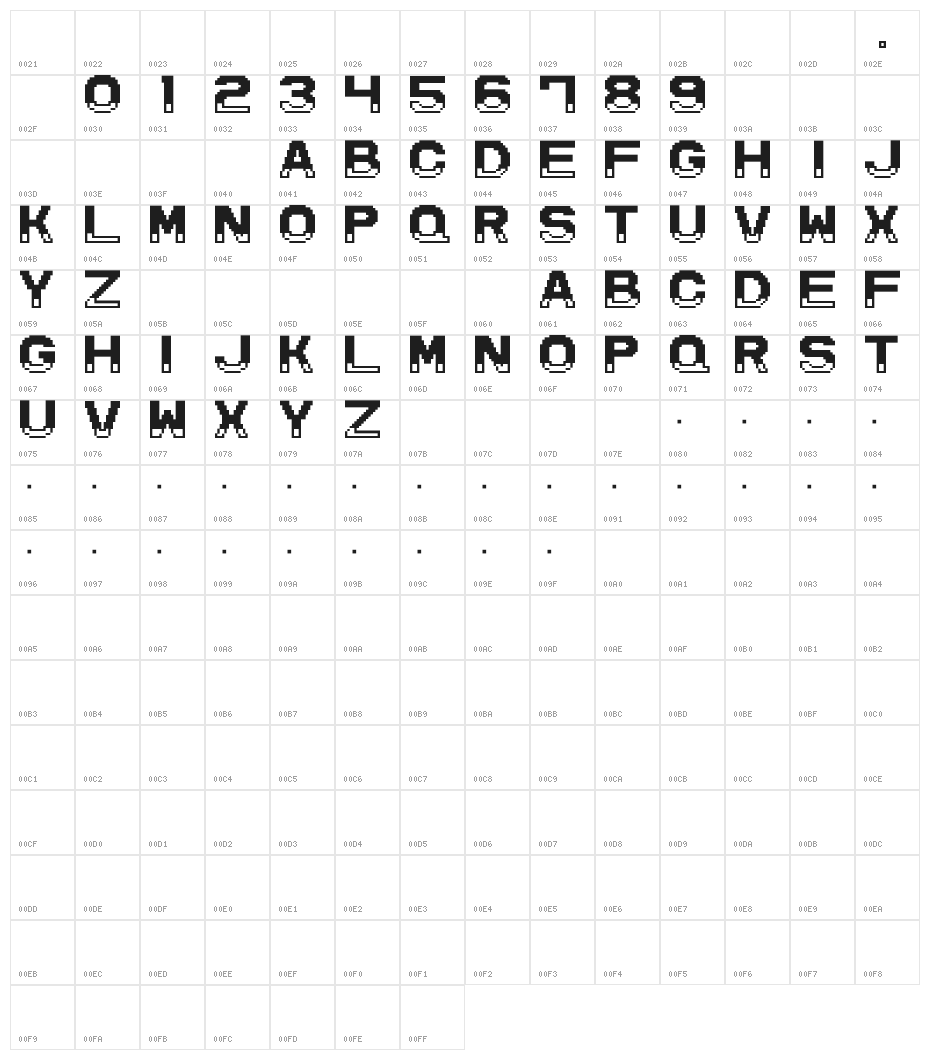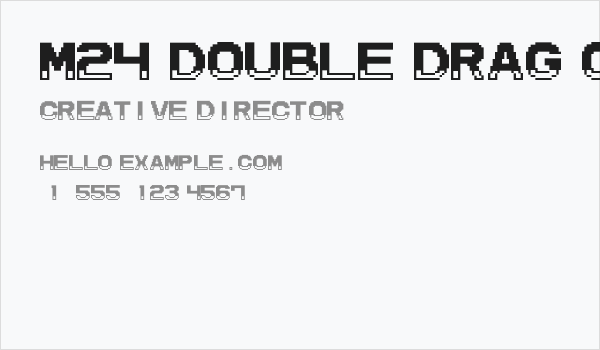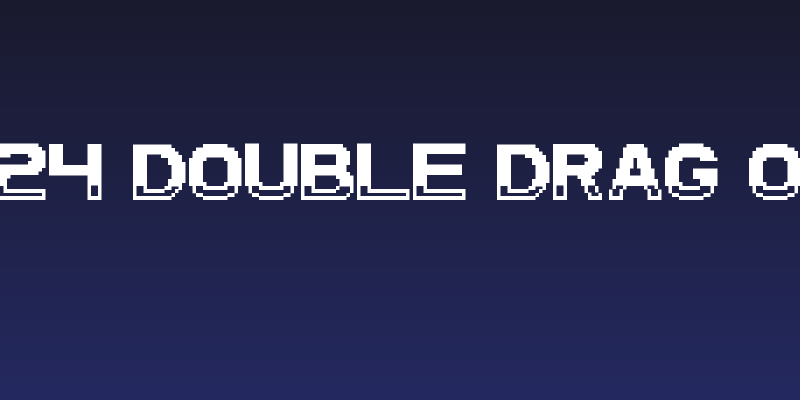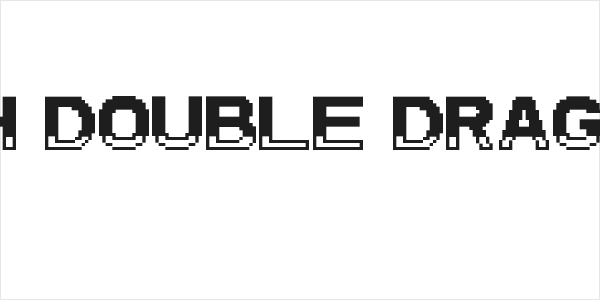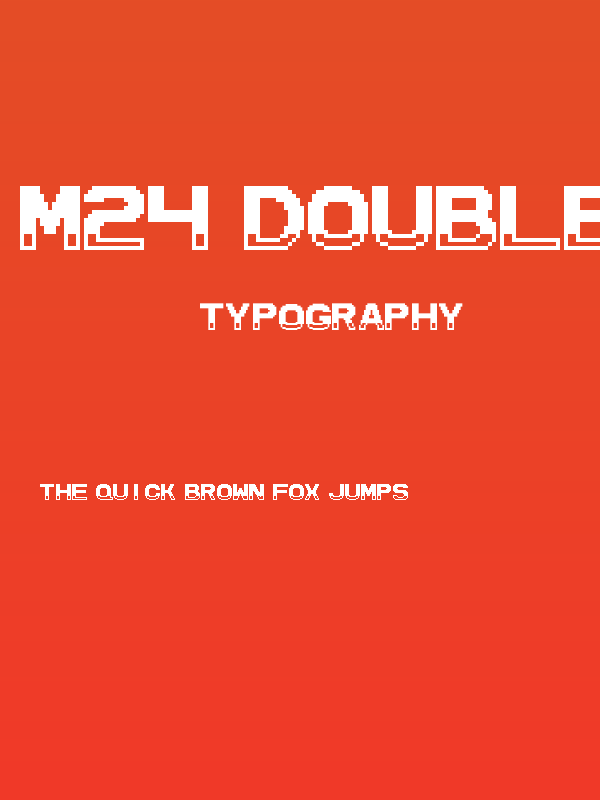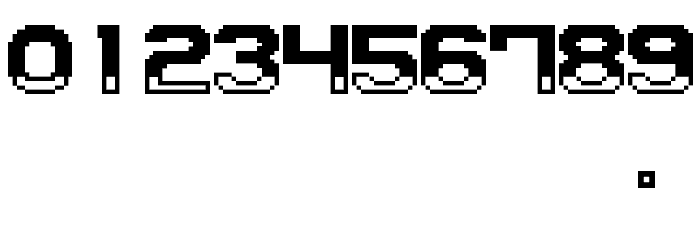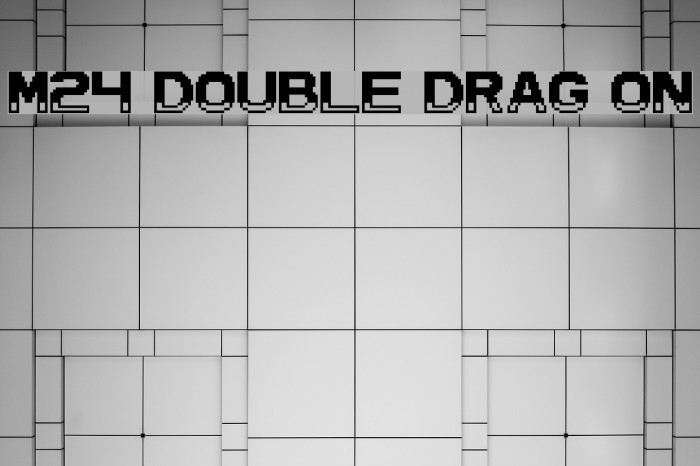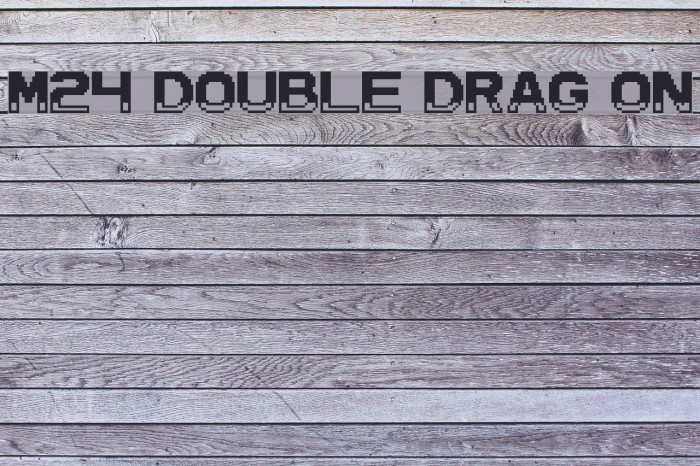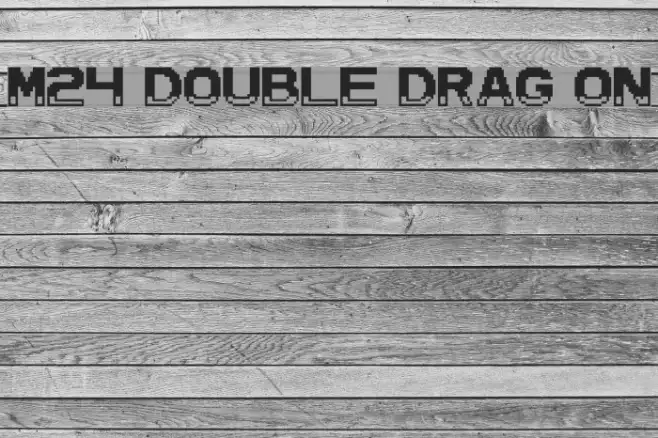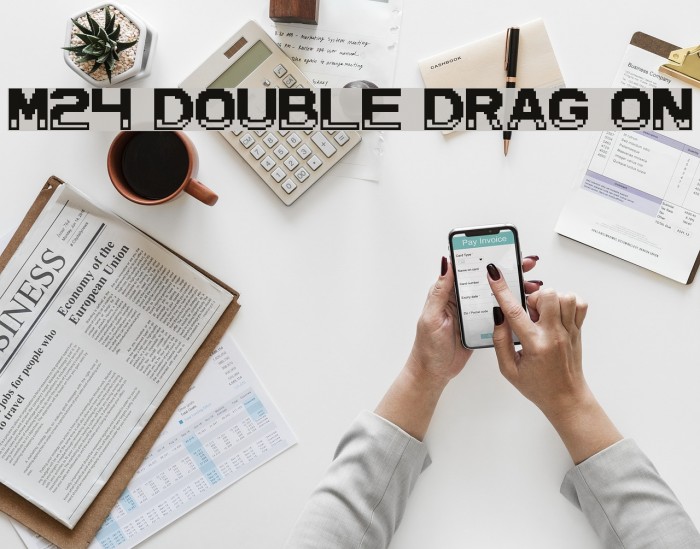
M24_DOUBLE DRAG ON Font
M24_DOUBLE DRAG ON Description
This font features a bold, geometric design with a distinct pixelated style, reminiscent of retro digital displays. Each character is constructed with a blocky, grid-like pattern, giving it a unique, tech-inspired appearance. The uppercase letters are uniform in height and width, creating a cohesive and structured look. The numbers follow the same design principles, ensuring consistency across all characters. The font's pixelated nature adds a nostalgic touch, making it ideal for projects that aim to evoke a sense of vintage computing or gaming aesthetics. Its boldness ensures readability, even at smaller sizes, while the geometric shapes provide a modern twist.
| Use Case | Headlines, Logos, Digital displays |
| Proposed Projects | Ideal for video game design, tech-themed posters, digital art projects, and retro-inspired branding. |